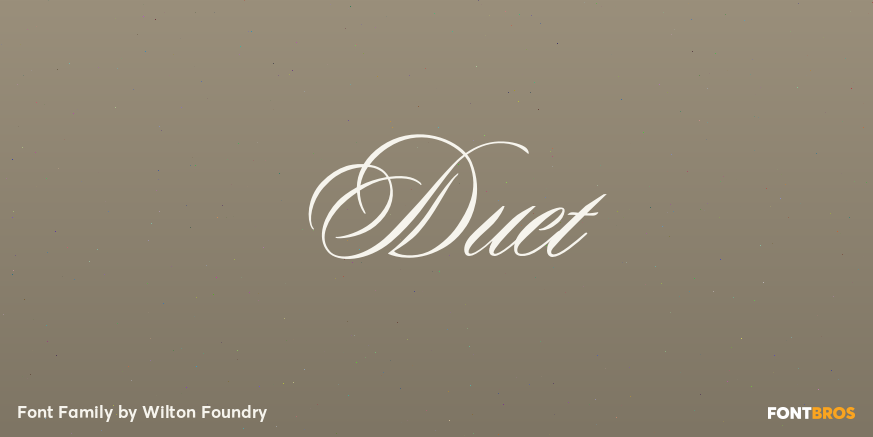
Duet
About Duet
The idea for Duet started when I decided to create a complex, elegant, and easy-to-read script with particular emphasis using a double line feature in the capitals. I set out to see how I could take advantage of the extra line in creating the curves.…